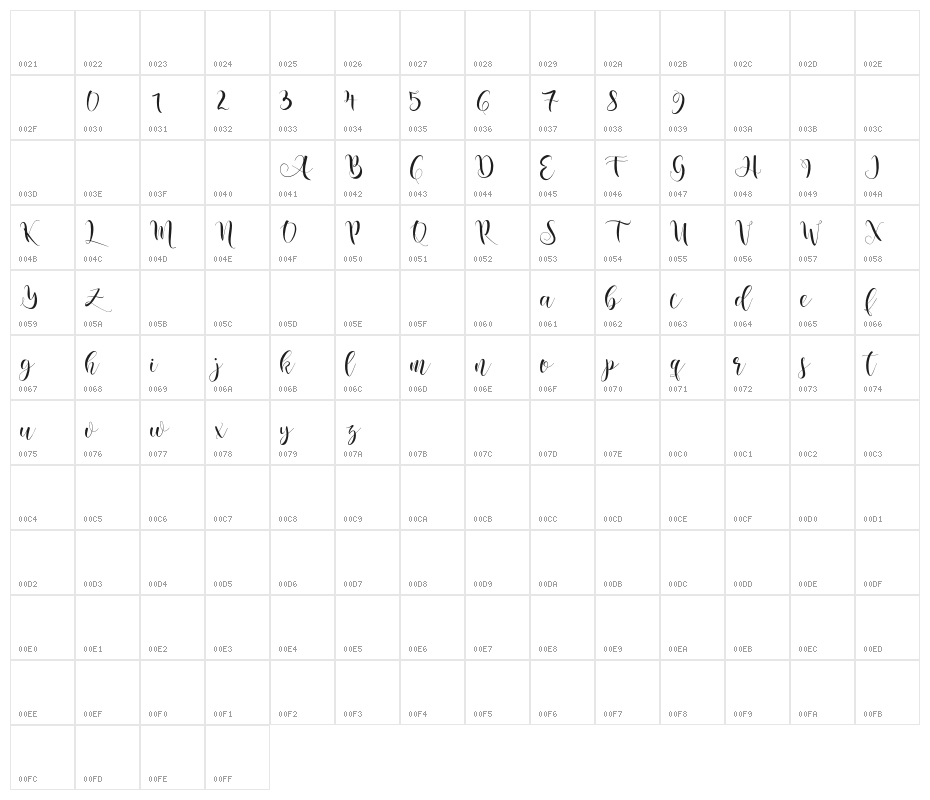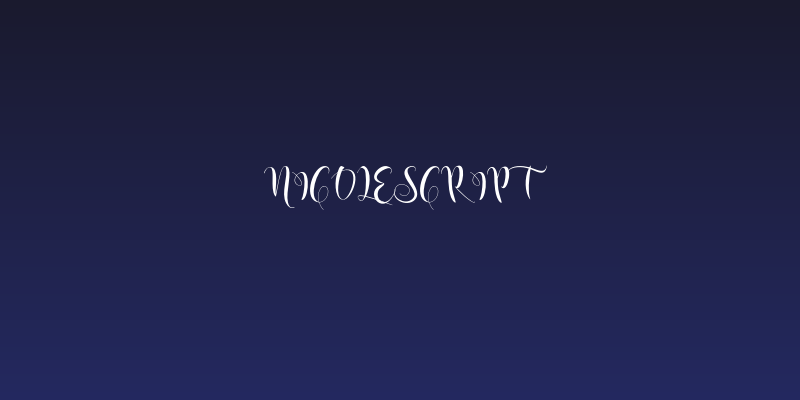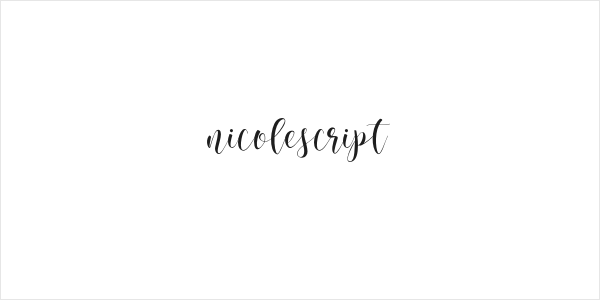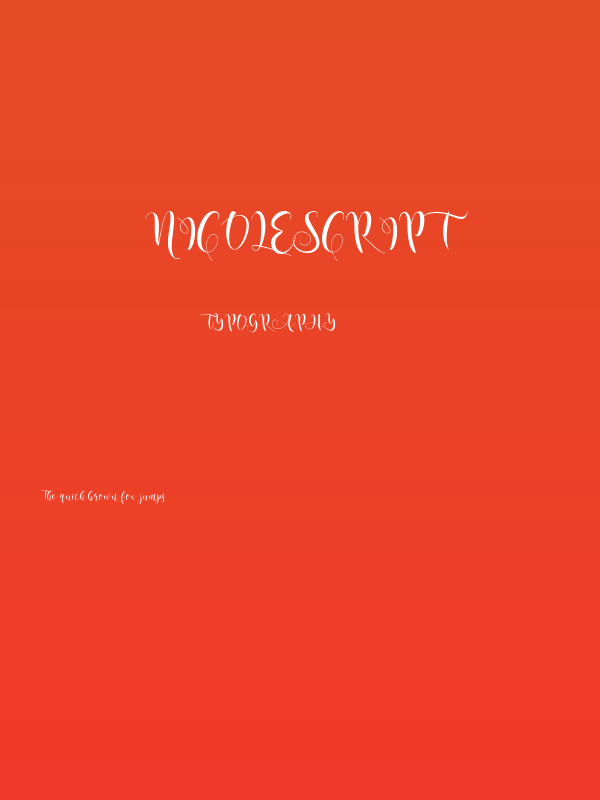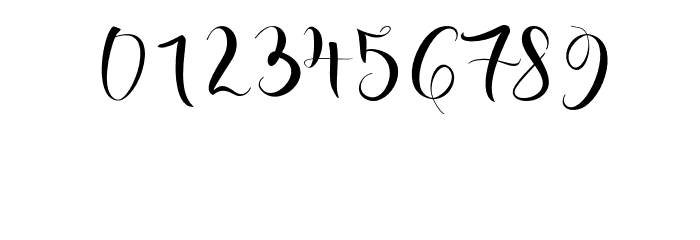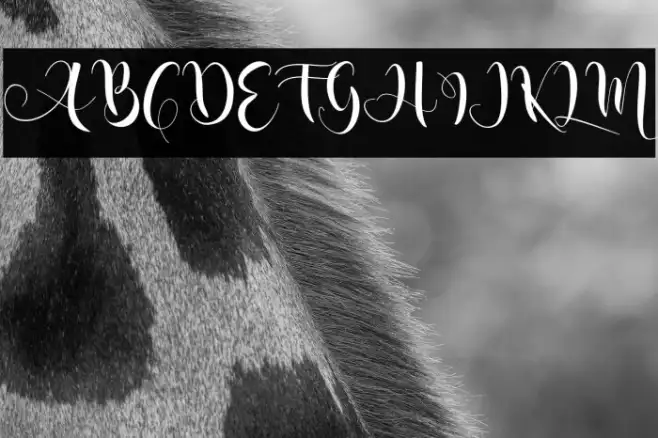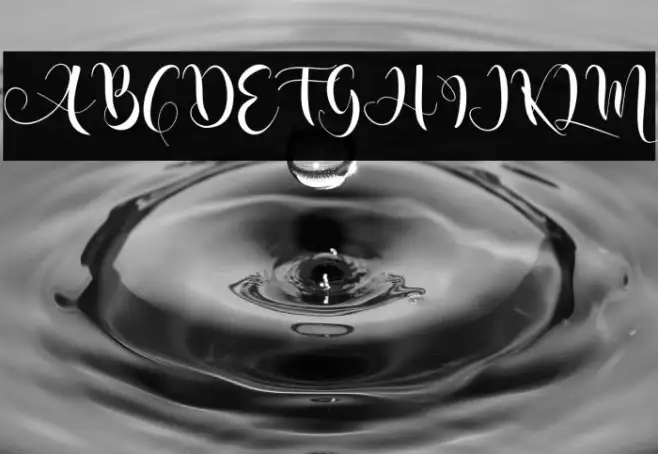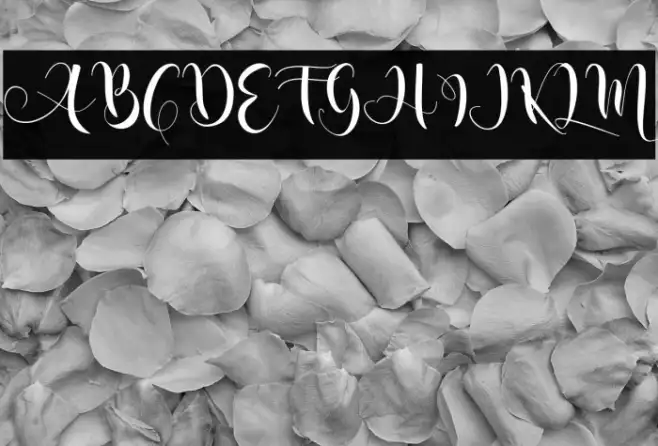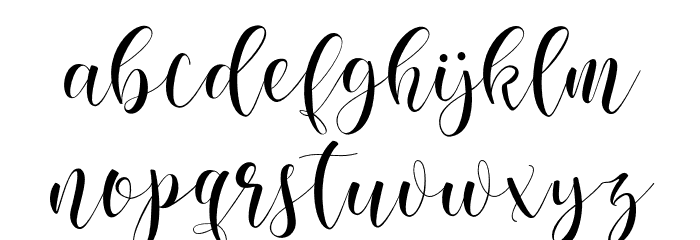
nicolescript Font
nicolescript Description
This elegant script font features a flowing, cursive style with intricate swashes and flourishes. The uppercase letters are particularly ornate, with extended loops and curves that add a sense of sophistication and grace. The lowercase letters maintain a consistent fluidity, complementing the uppercase with their own subtle embellishments. Numbers and special characters are designed to match the overall aesthetic, ensuring a cohesive look across all text. The font's delicate strokes and high contrast between thick and thin lines make it ideal for creating a luxurious and artistic feel.